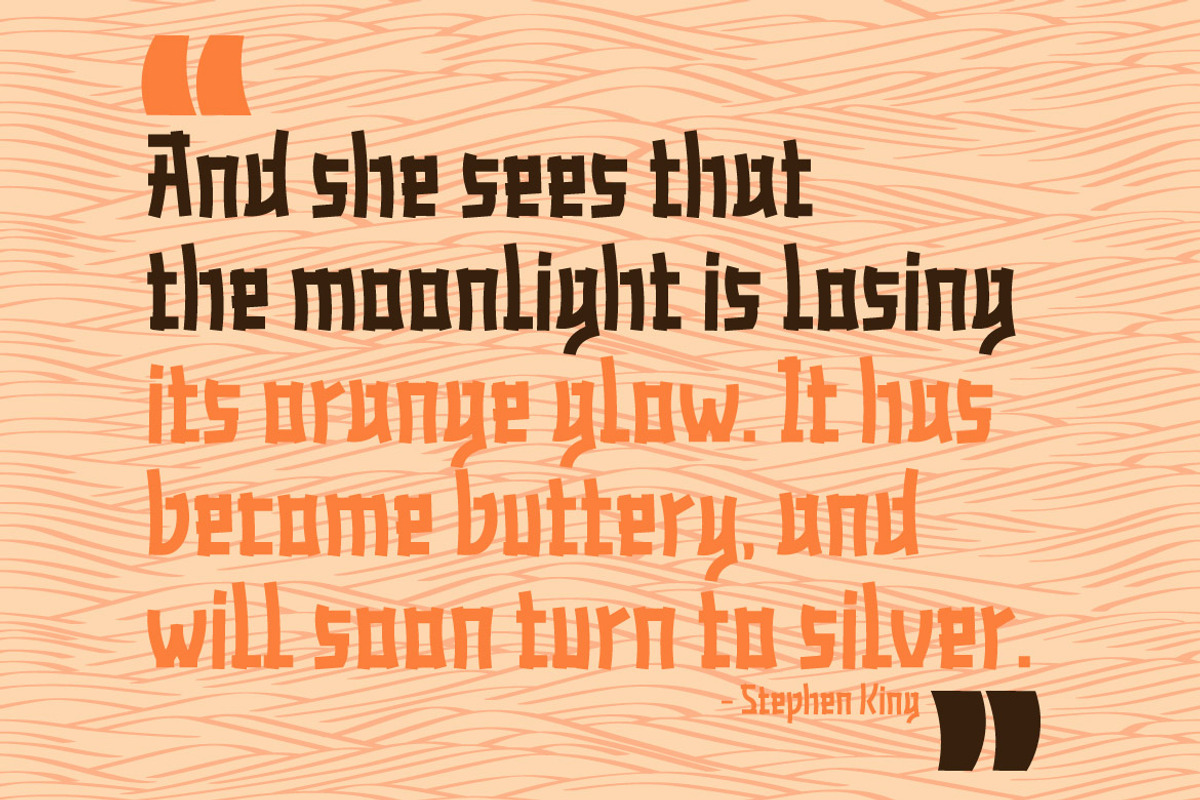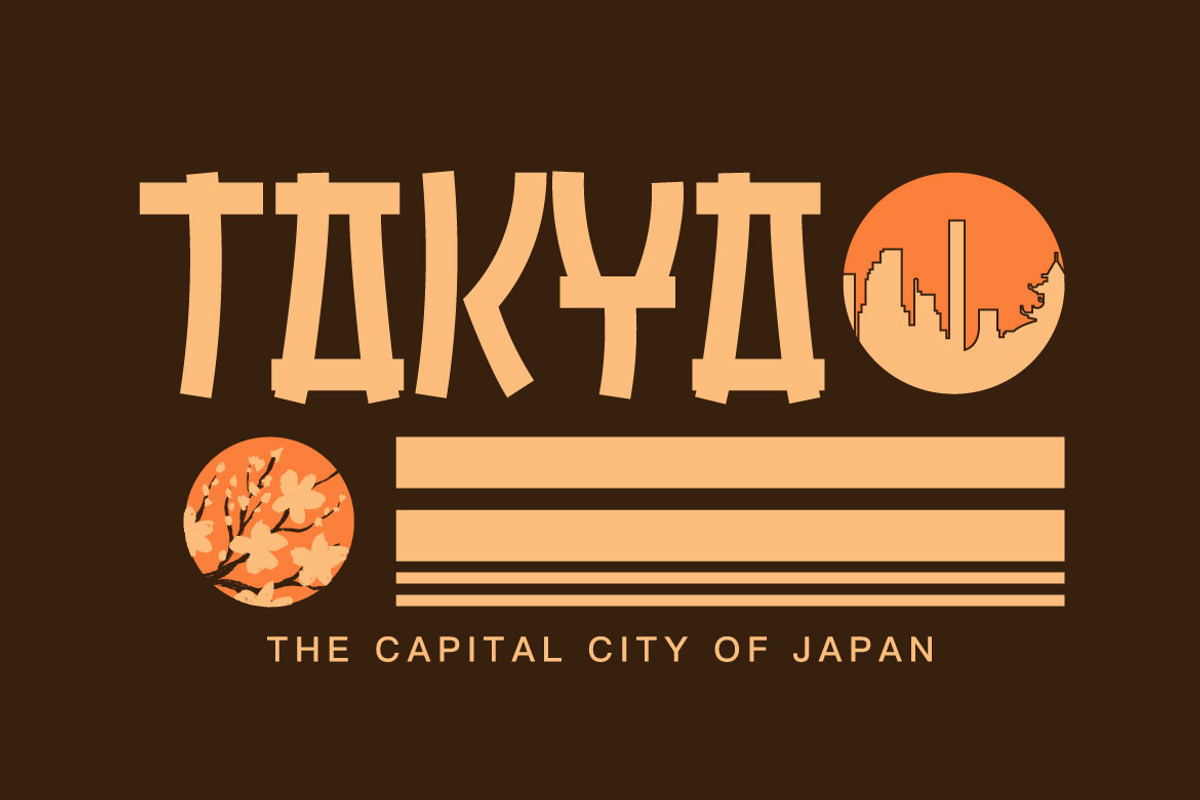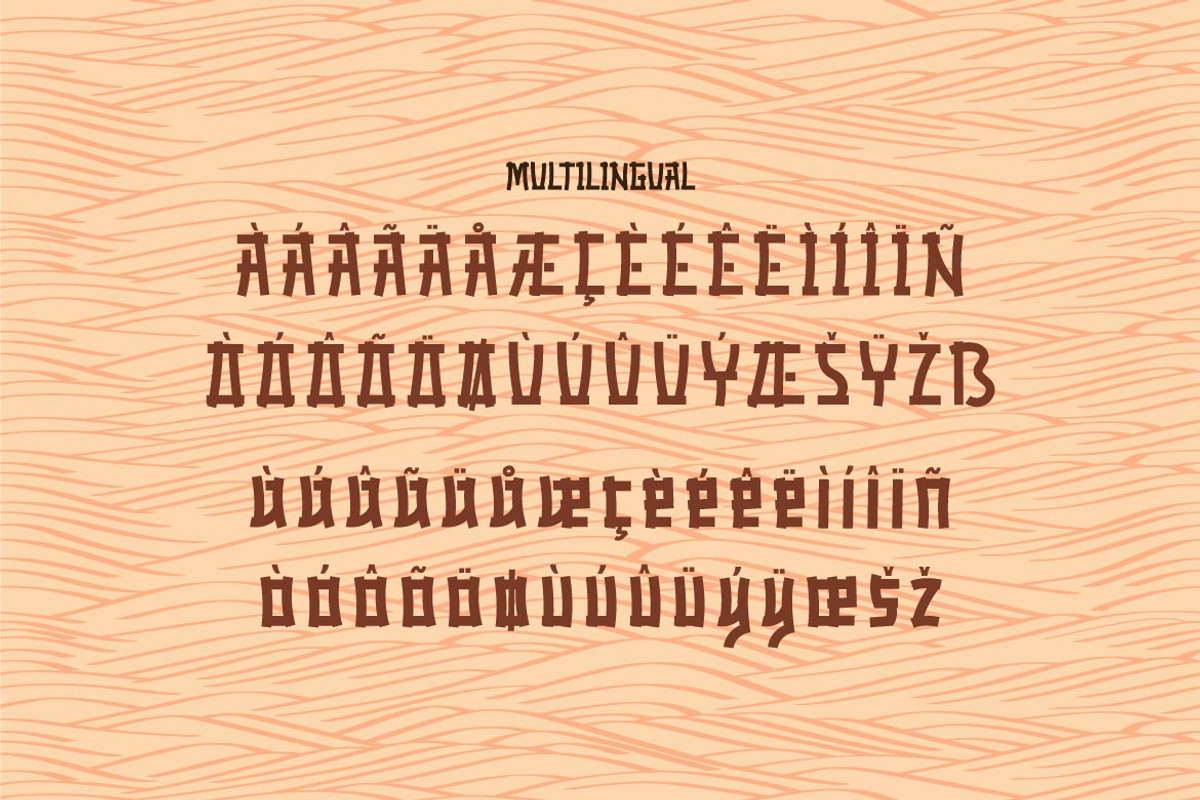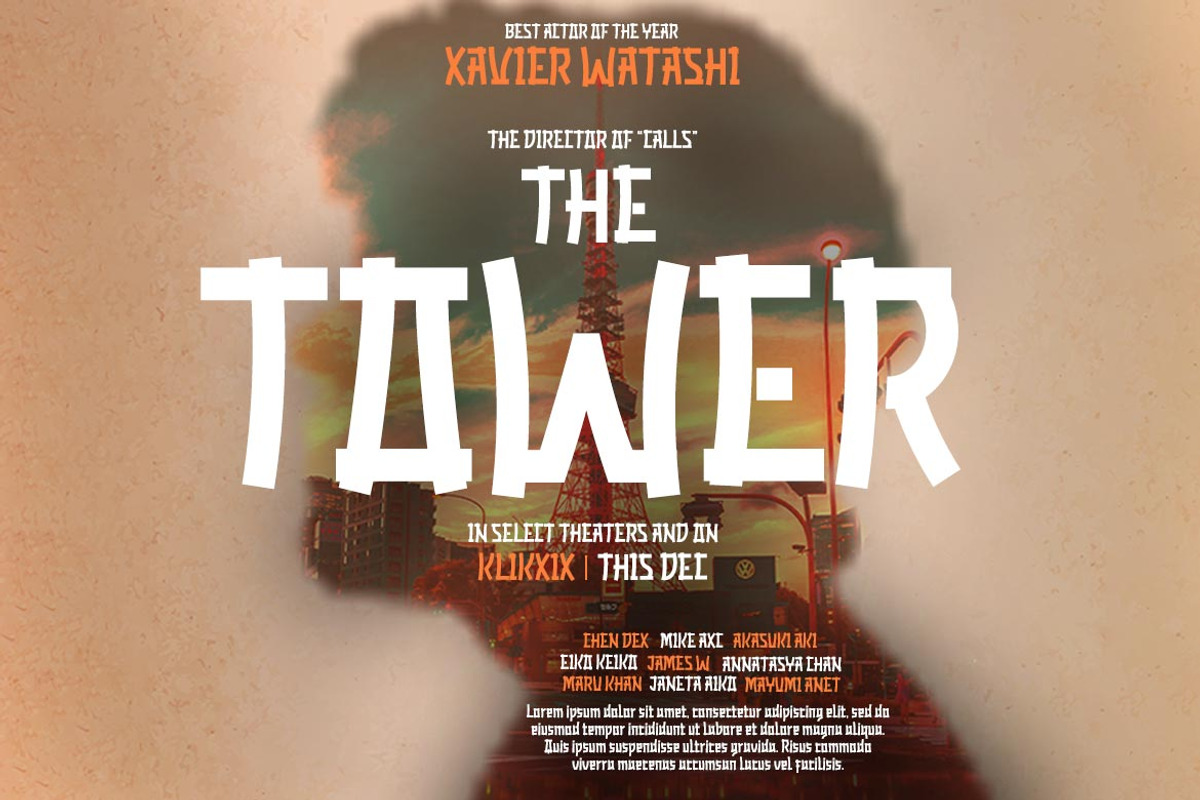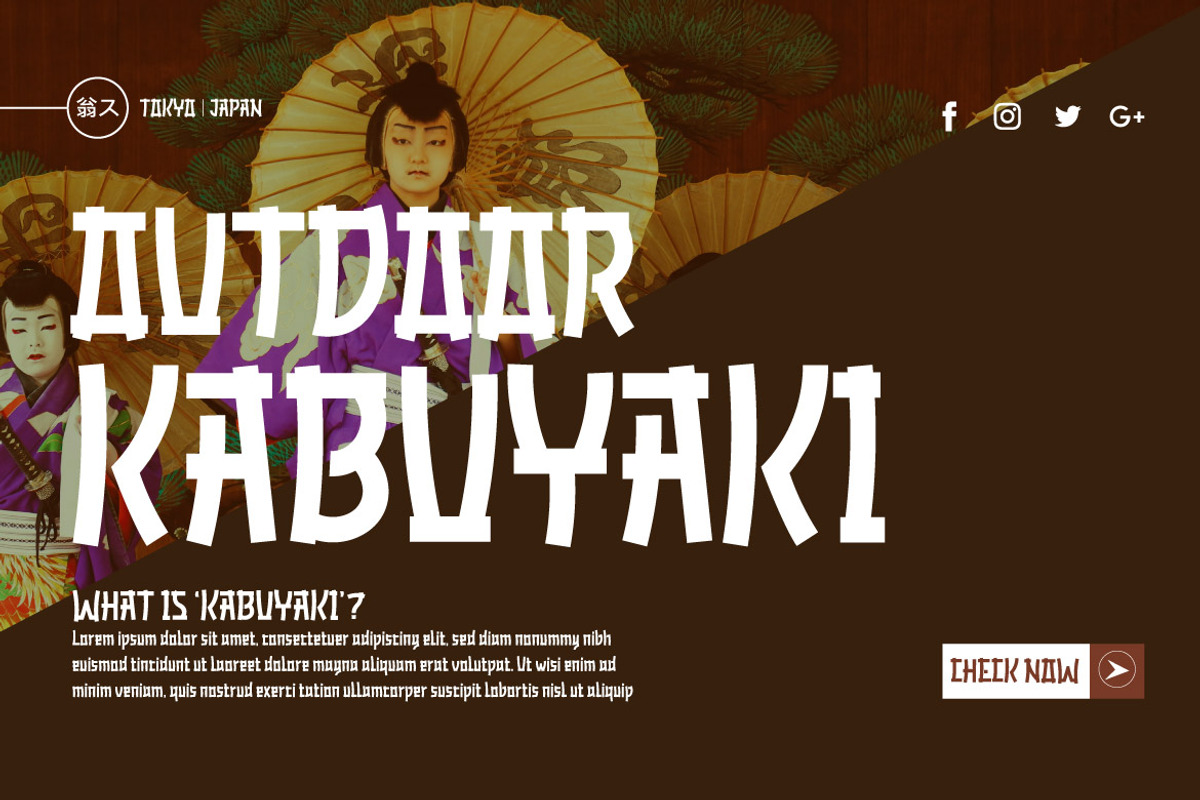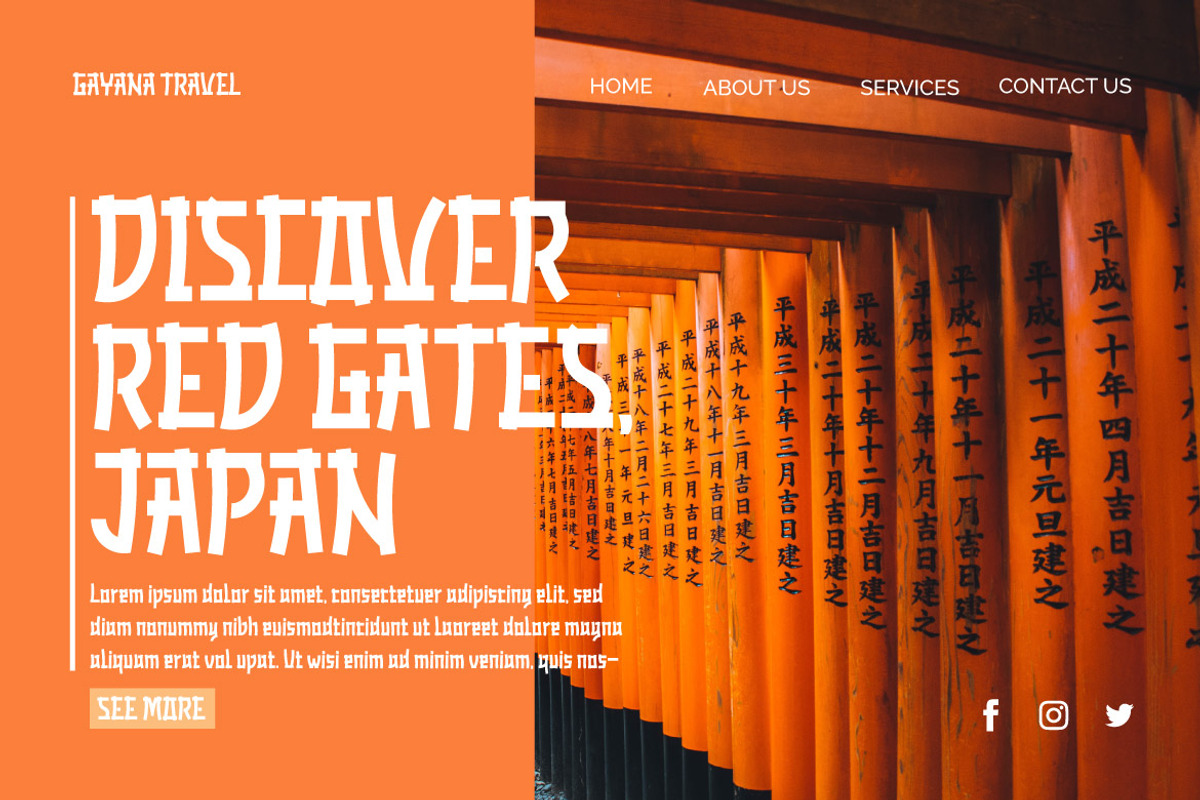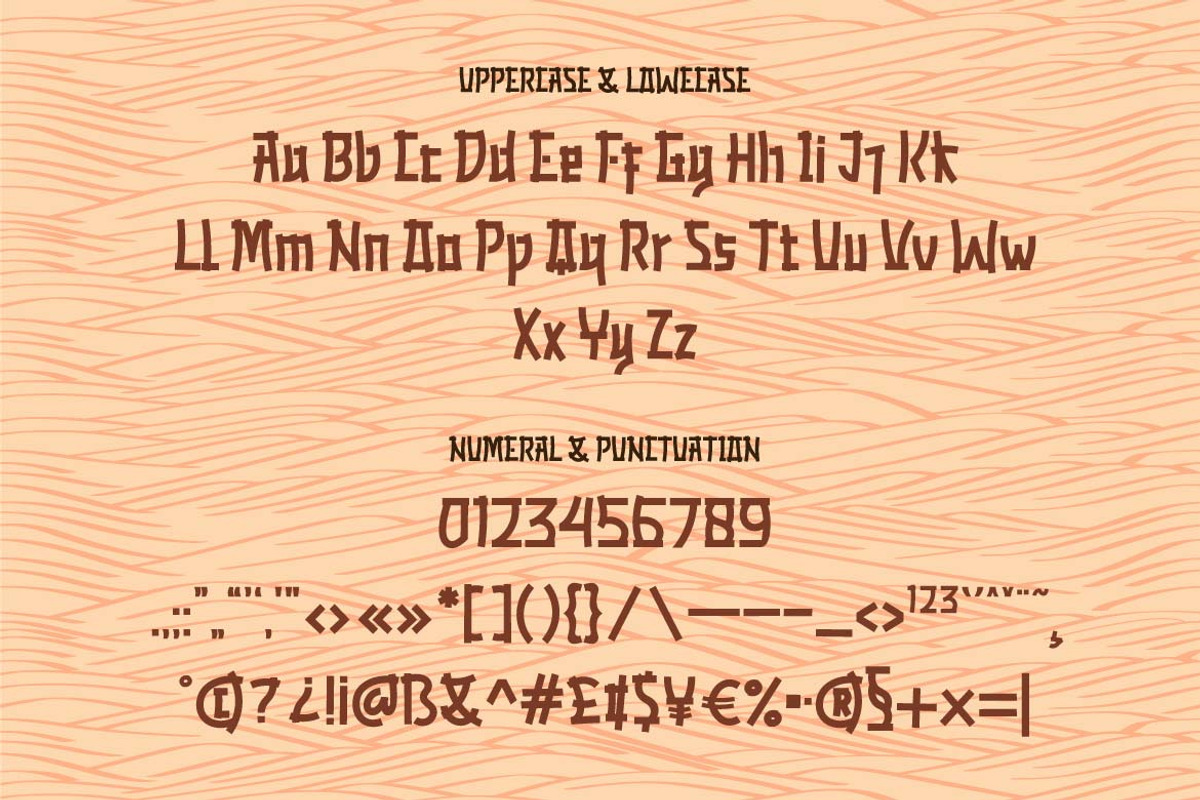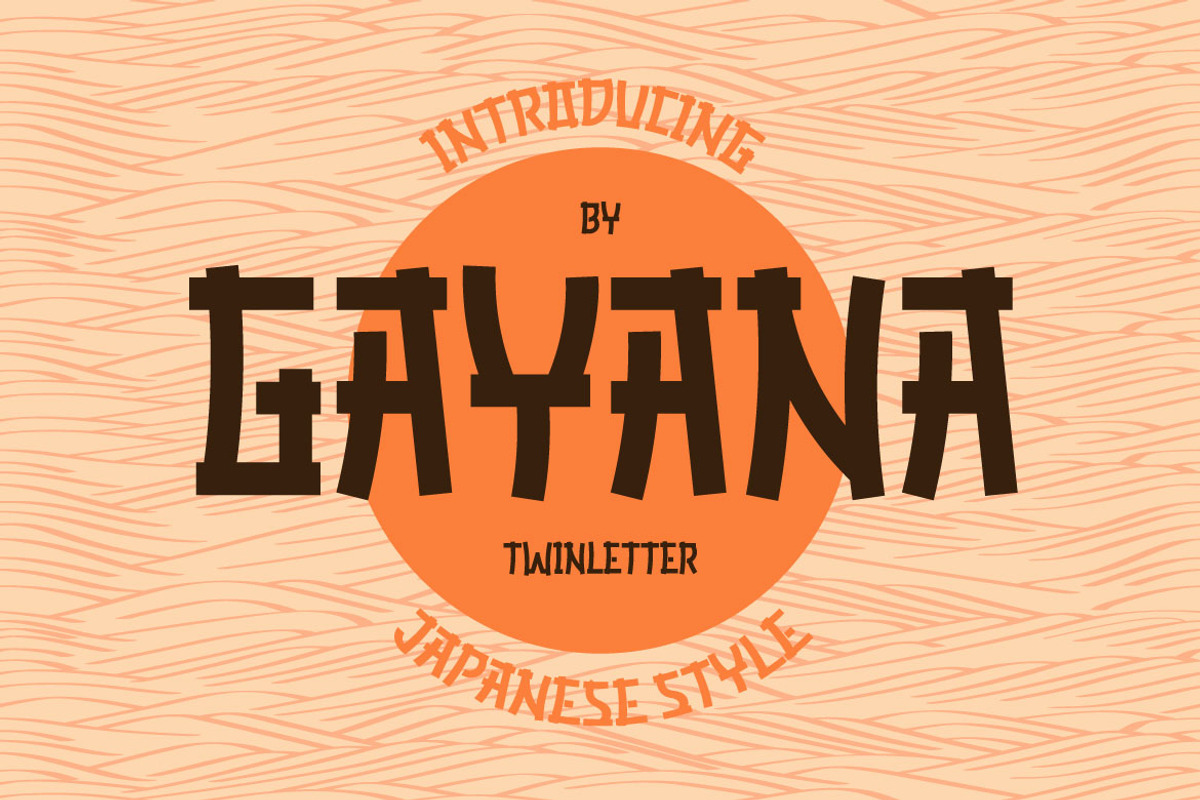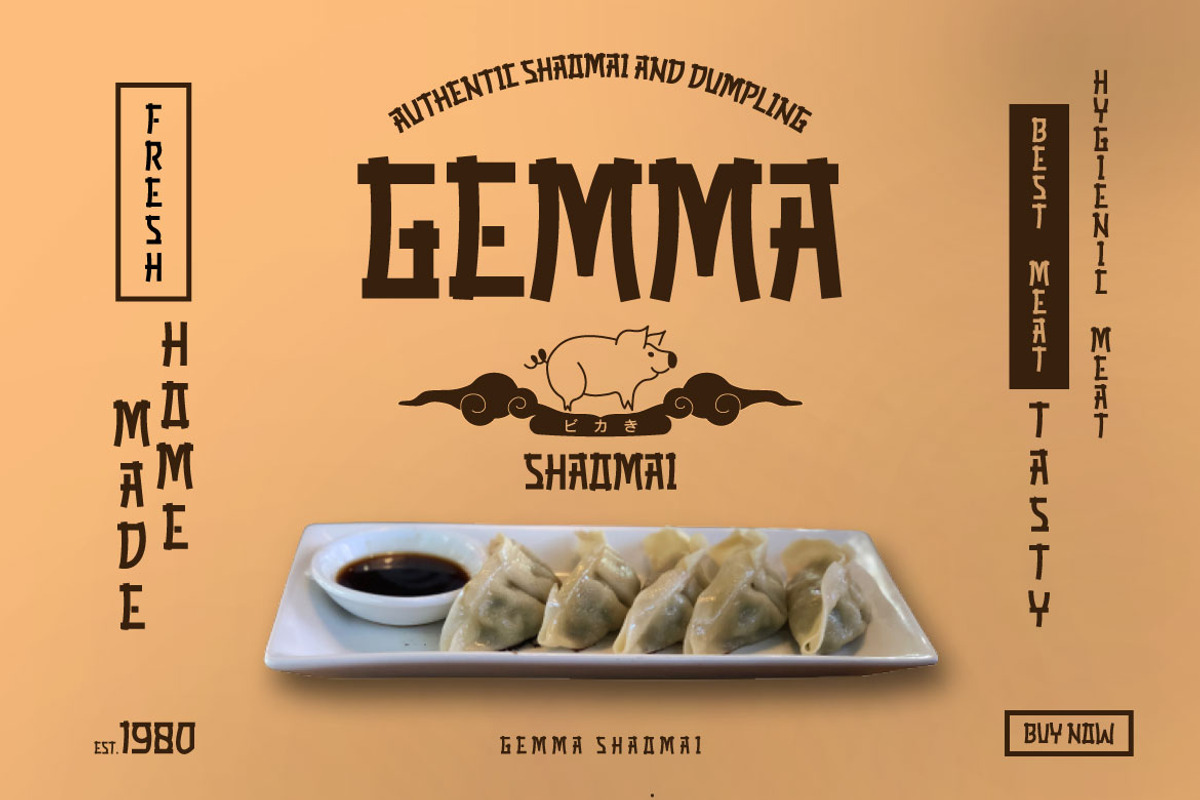
GAYANA Faux Japanese Font
GAYANA is a faux-Japanese font featuring traditional Japanese features. By incorporating traditional Japanese culture and style into this typeface, your project will be unique, easy to comprehend, and recall by a large number of people, ensuring that the great opportunity will be entirely yours. Your project must be unique, exquisite, and opulent!
Logotypes, food banners, branding, brochure, posters, movie titles, book titles, quotes, and more may all benefit from this font.
Of course, using this font in your various design projects will make them excellent and outstanding; many viewers are drawn to the striking and unusual graphic display.
Start utilizing this typeface in your projects to make them stand out.